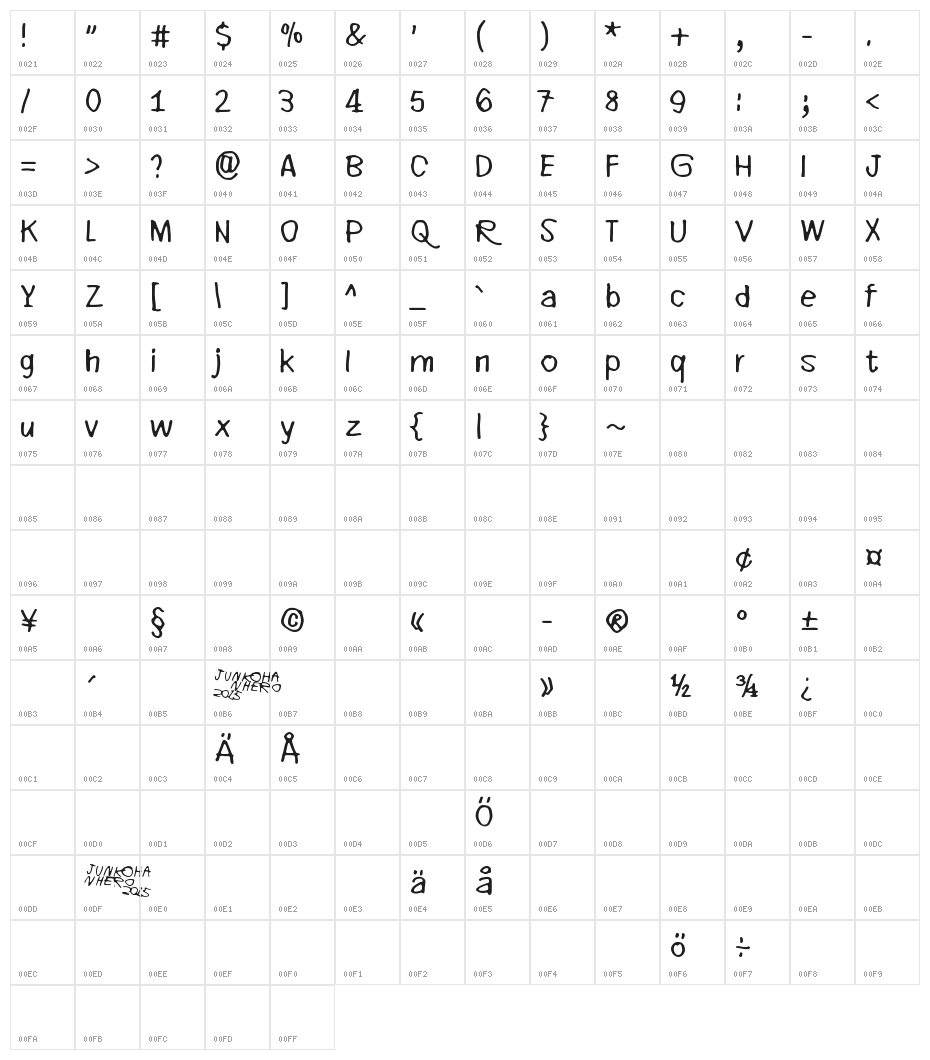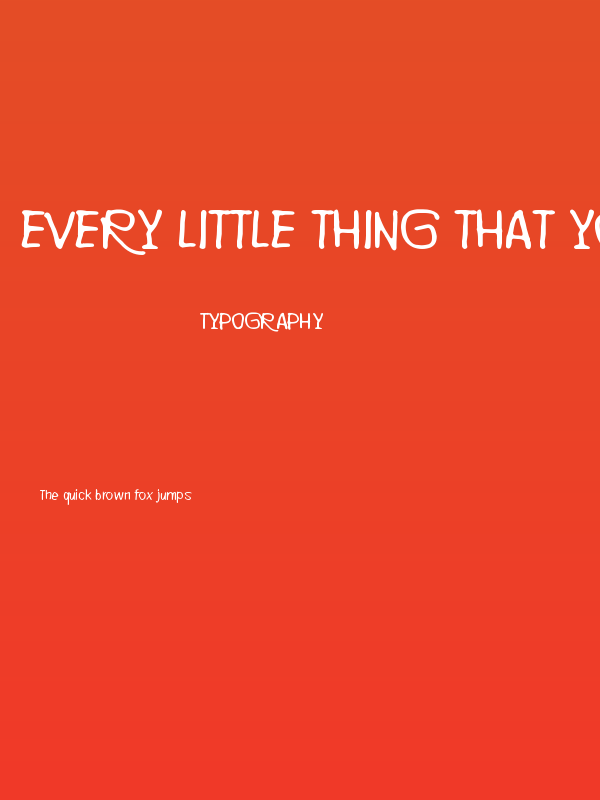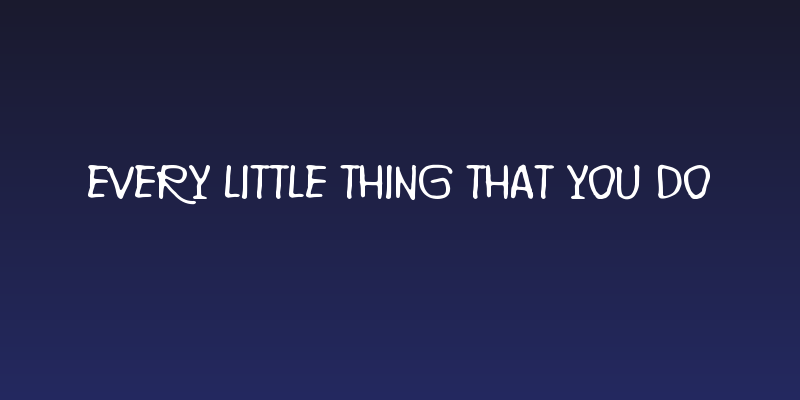
Every little thing that you do Font
Every little thing that you do Description
This font exudes a playful and whimsical charm, characterized by its hand-drawn appearance. The letters are slightly irregular, giving it a casual and friendly feel. The strokes are bold and rounded, with a consistent thickness that adds to its approachable nature. The uppercase and lowercase letters maintain a cohesive style, while the numerals and special characters complement the overall design. This font is perfect for projects that require a touch of personality and creativity, making it ideal for children's books, playful branding, or casual invitations.
Overall StylePlayful, Whimsical
Use CaseHeadlines, Logos, Invitations
Proposed ProjectsChildren's books, playful branding, casual invitations, creative posters.